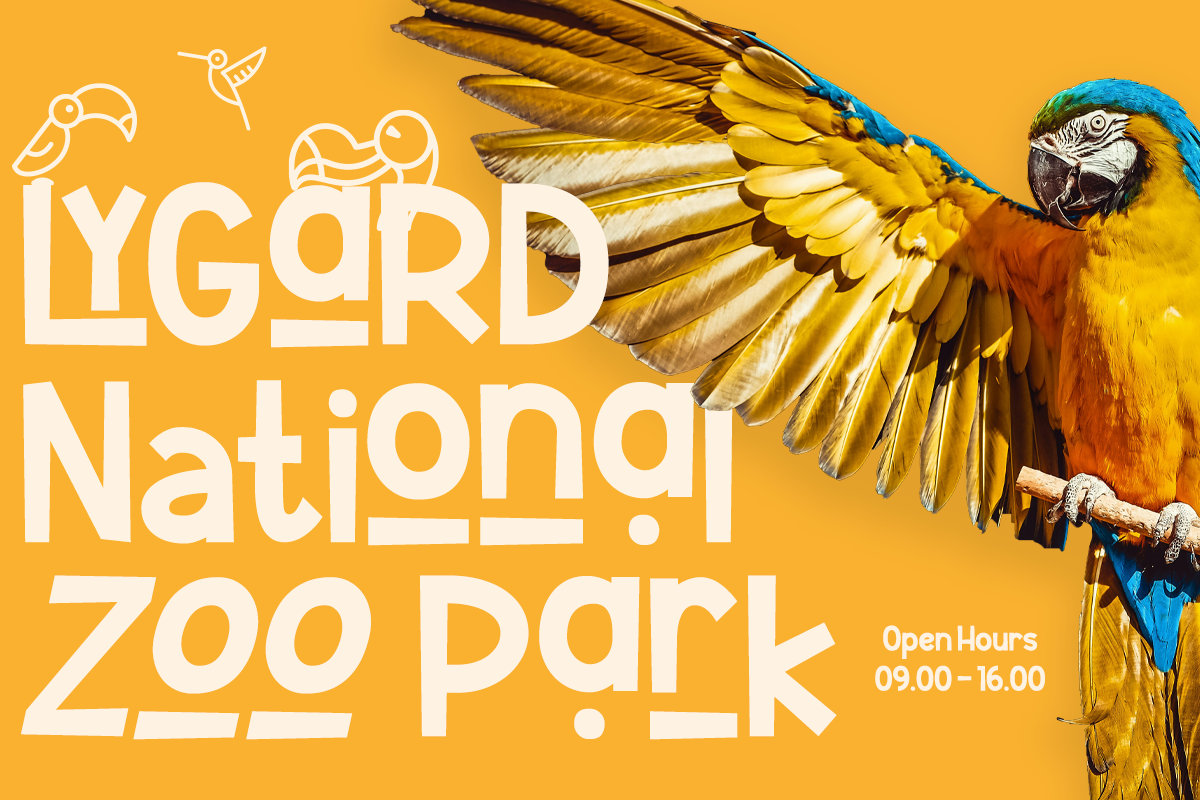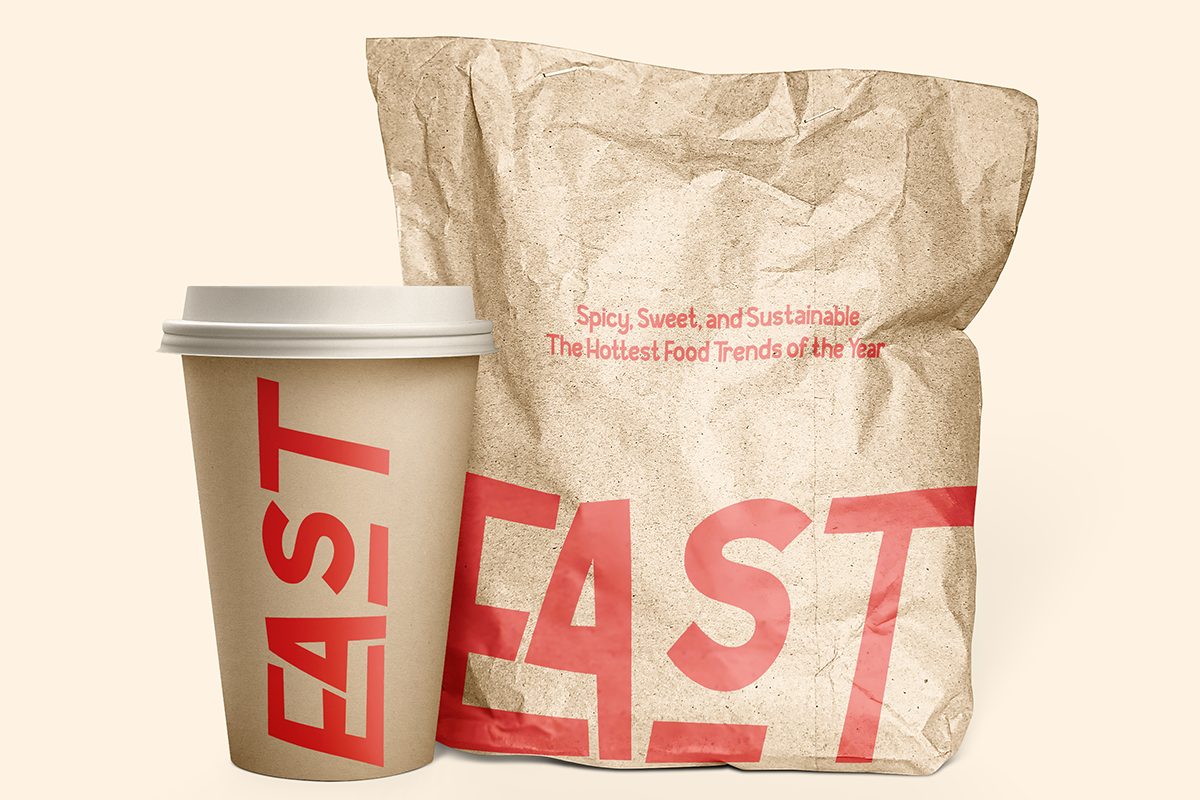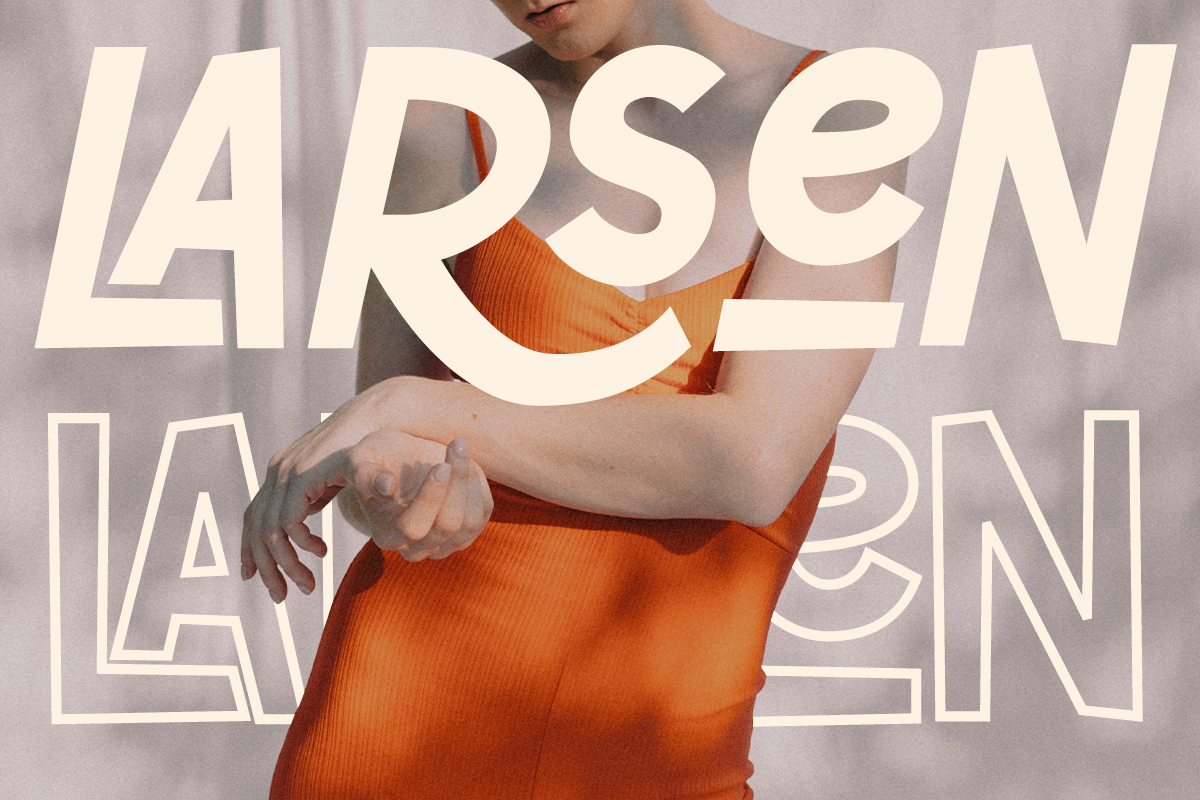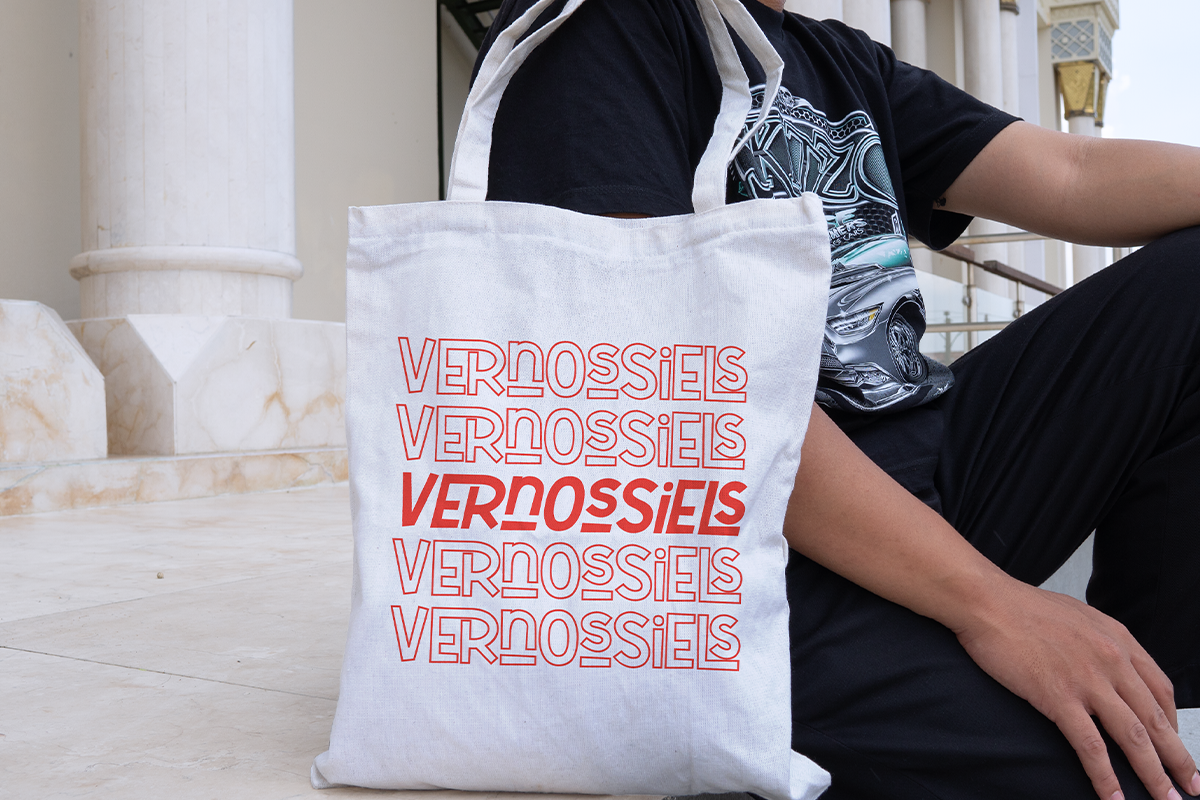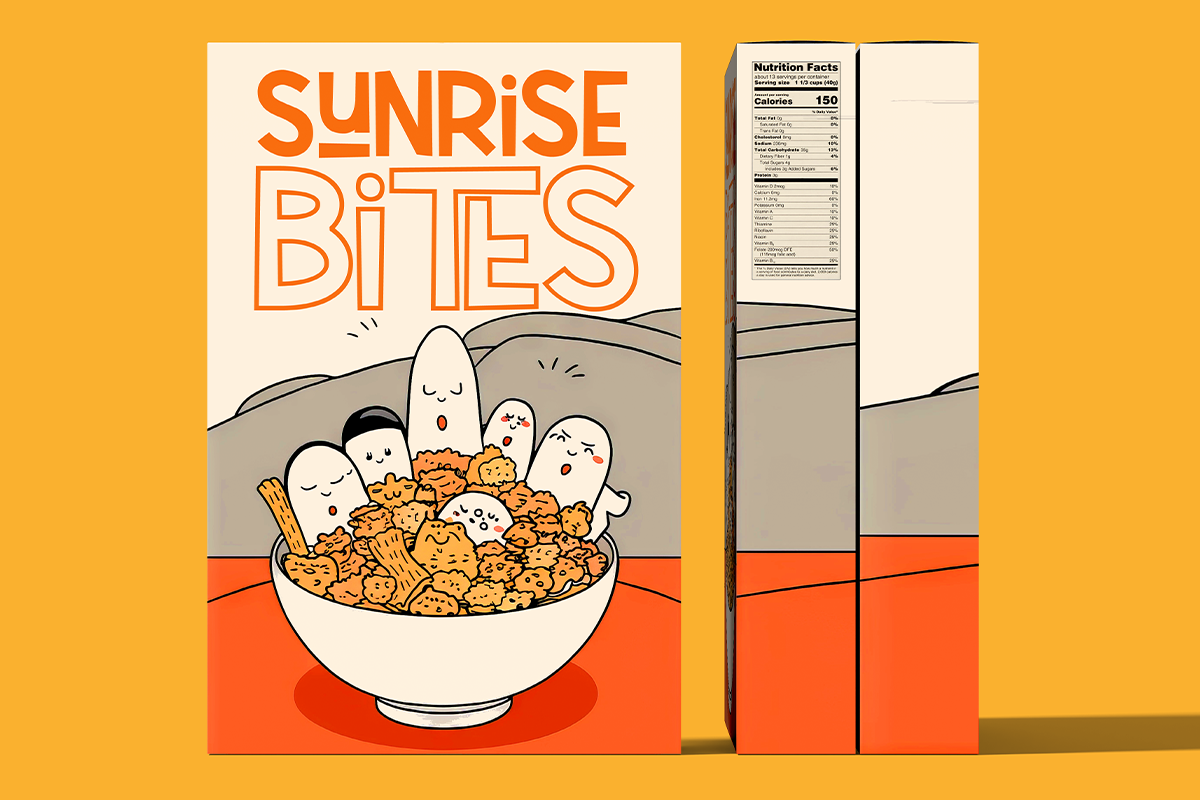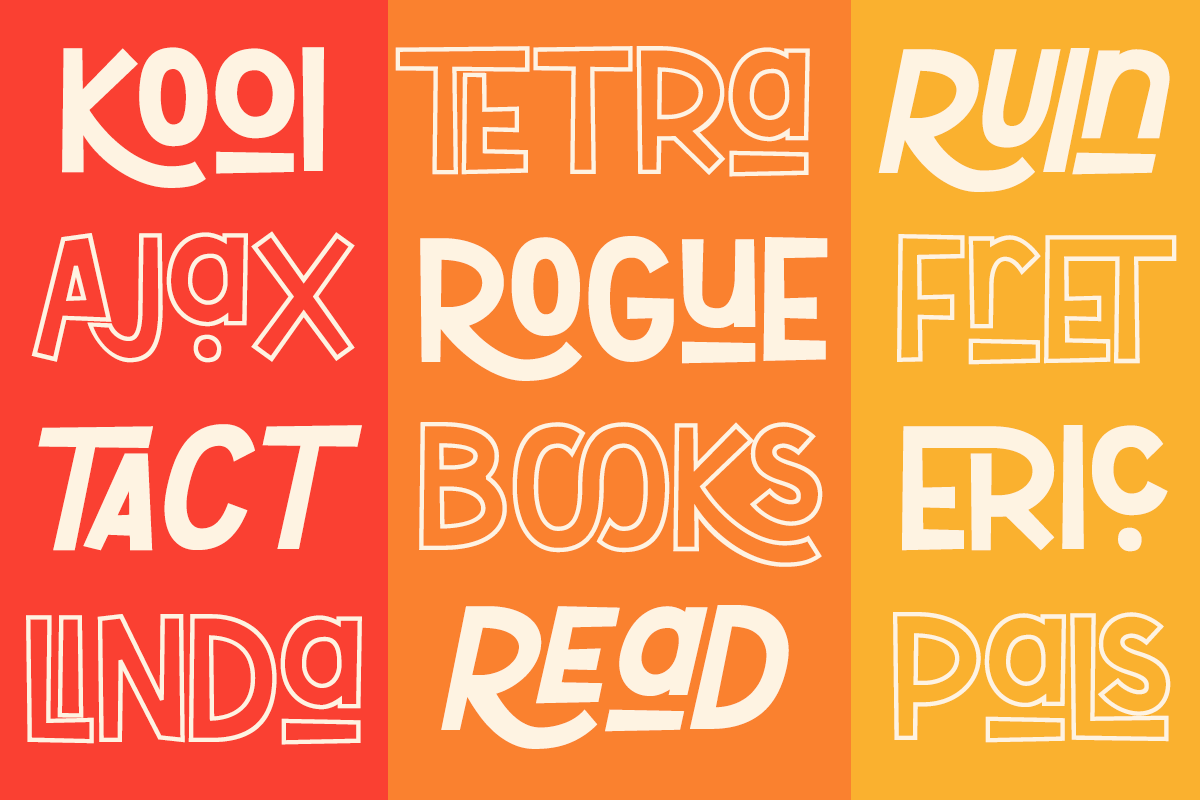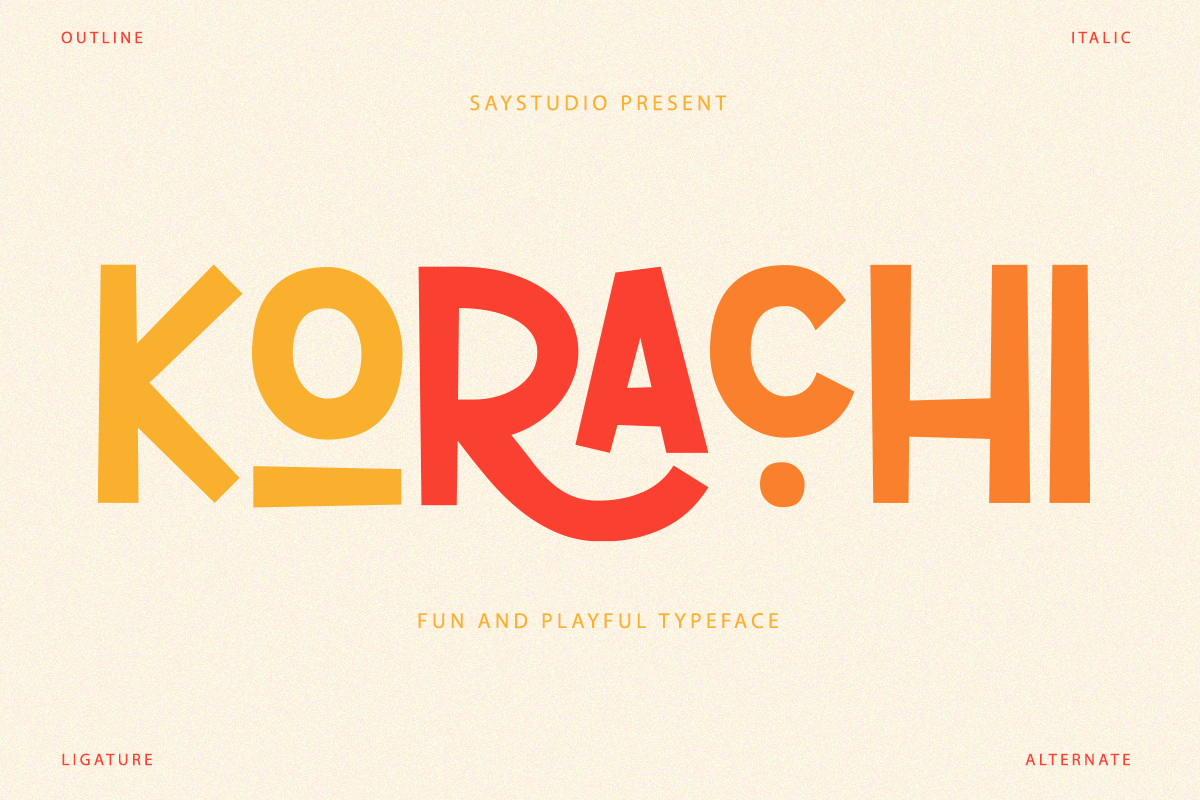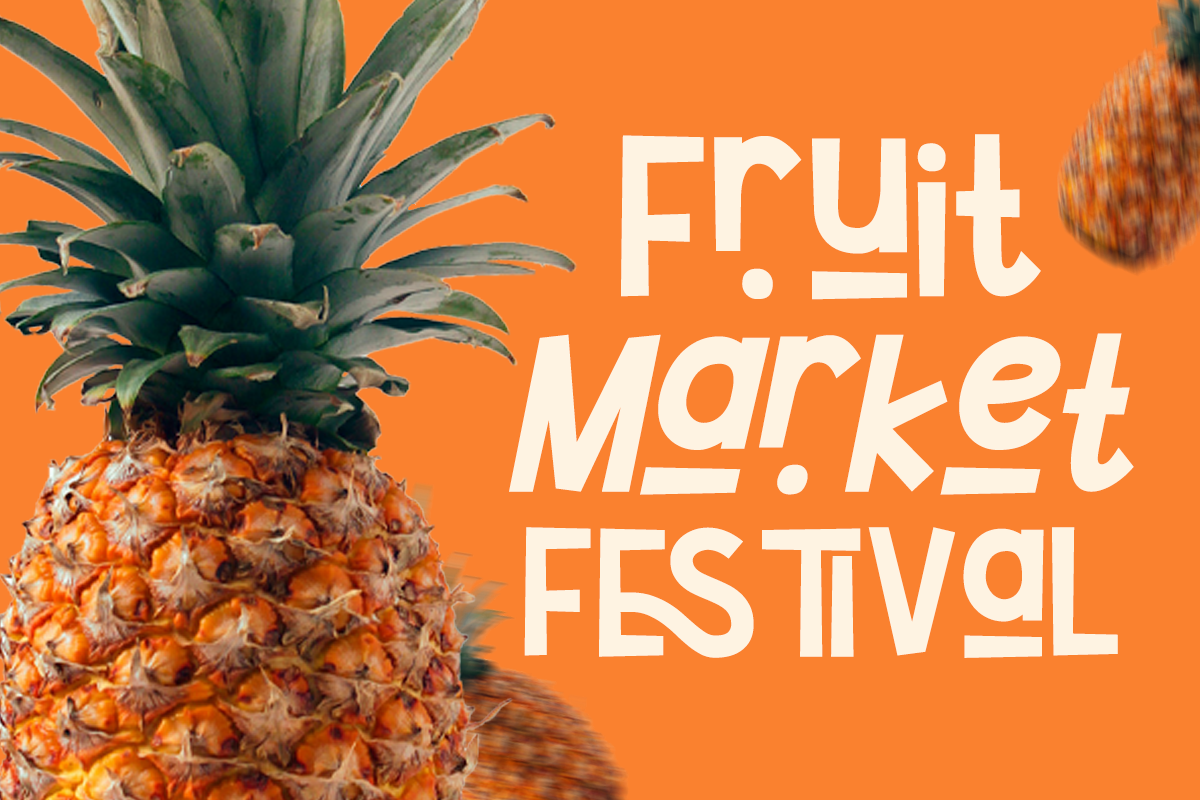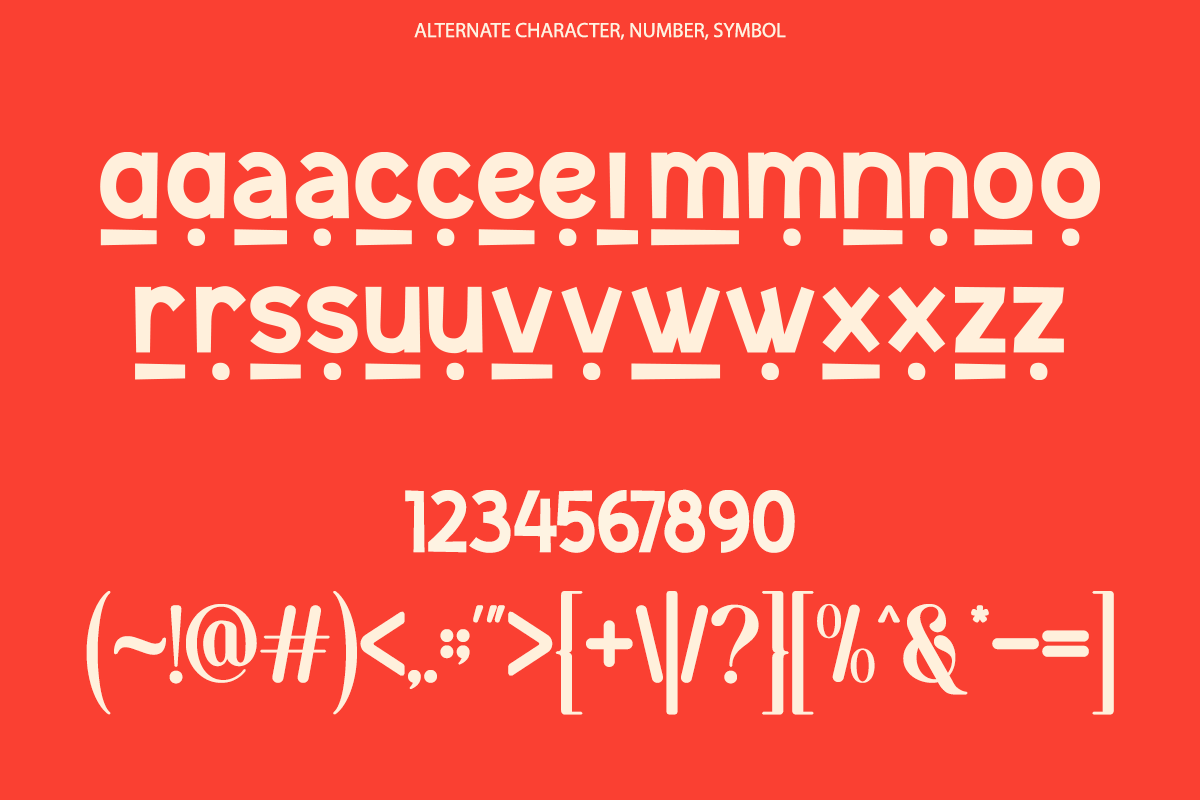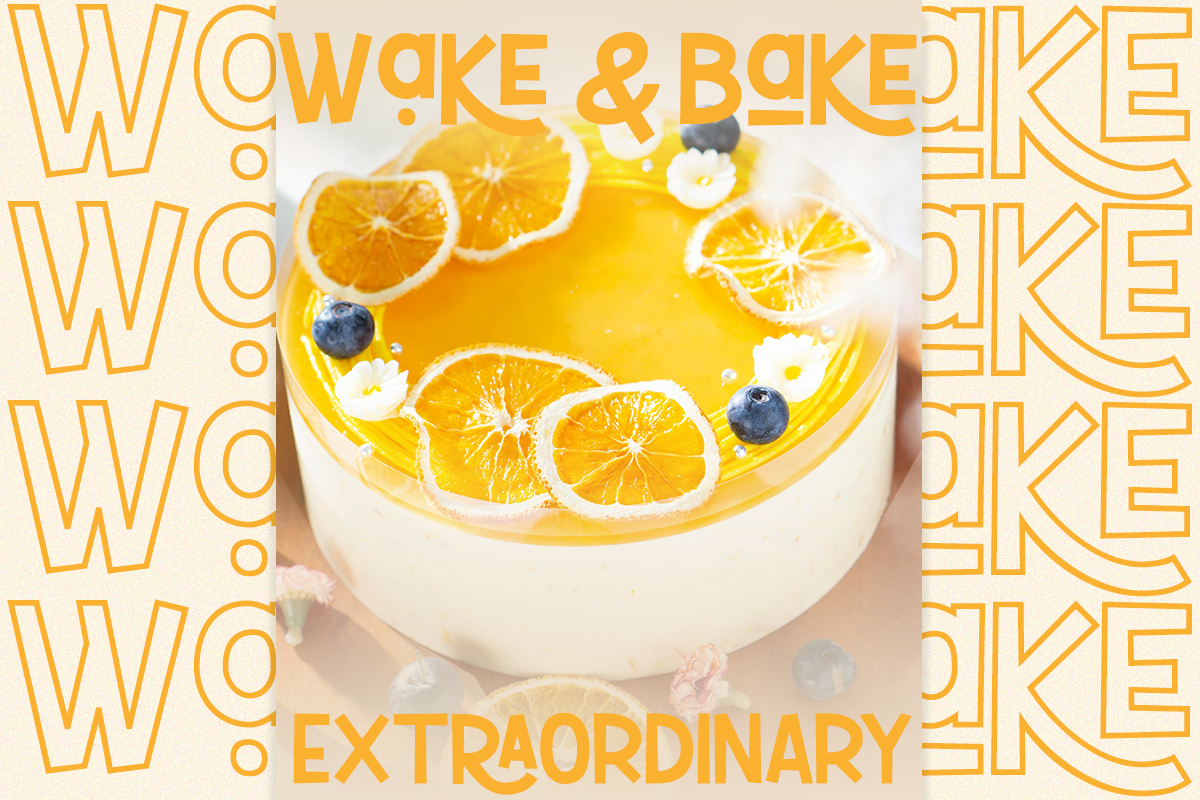
Korachi - Fun and Playful Font
Introducing Korachi – the ultimate font for designers seeking a playful and cheerful touch! with plenty of ligatures and stylistic alternatives. Perfect for creating logos, greeting cards, posters, packaging and so much more! Its charming and warm character will help you give your project a truly unique feel.
Designed and kerned with care and love to make using it a breeze.
- 50+ Stylish Alternates
- 50+ Ligatures
- Multi Language Support